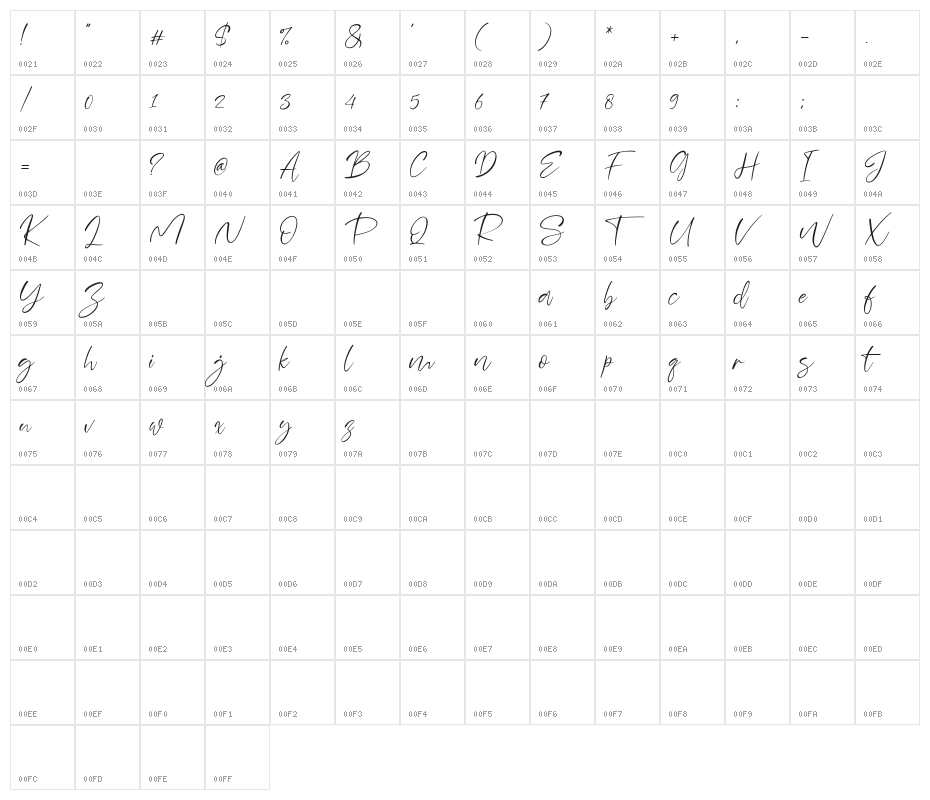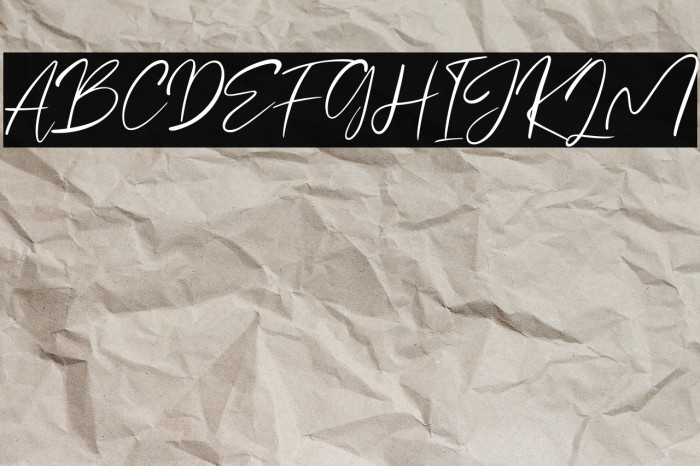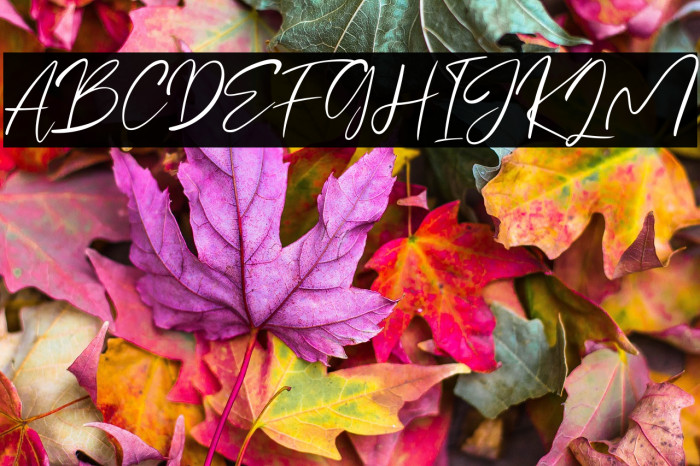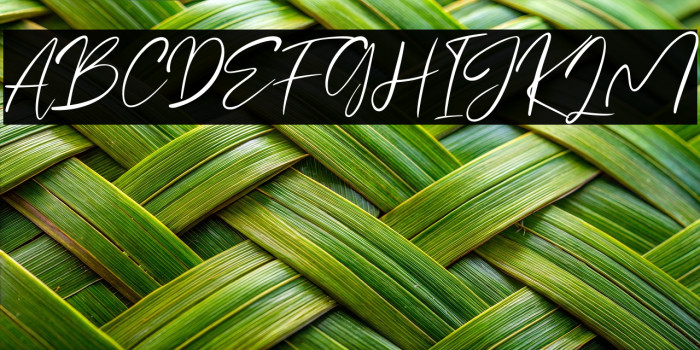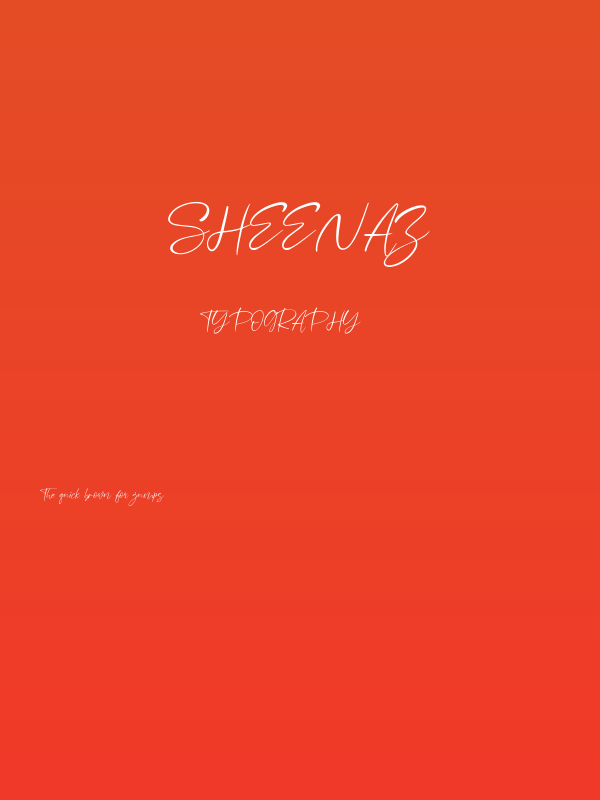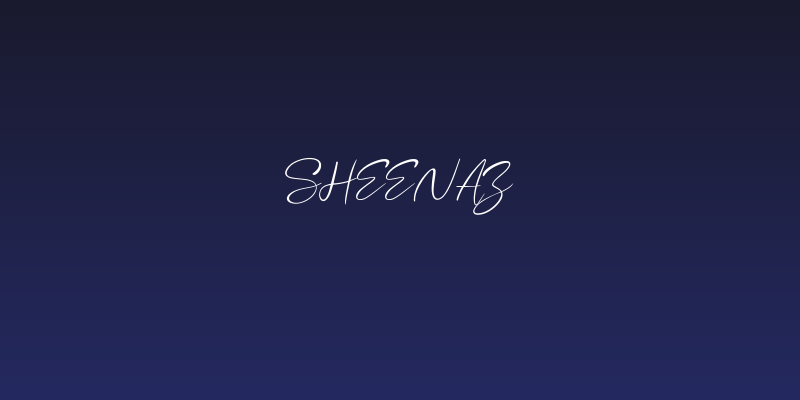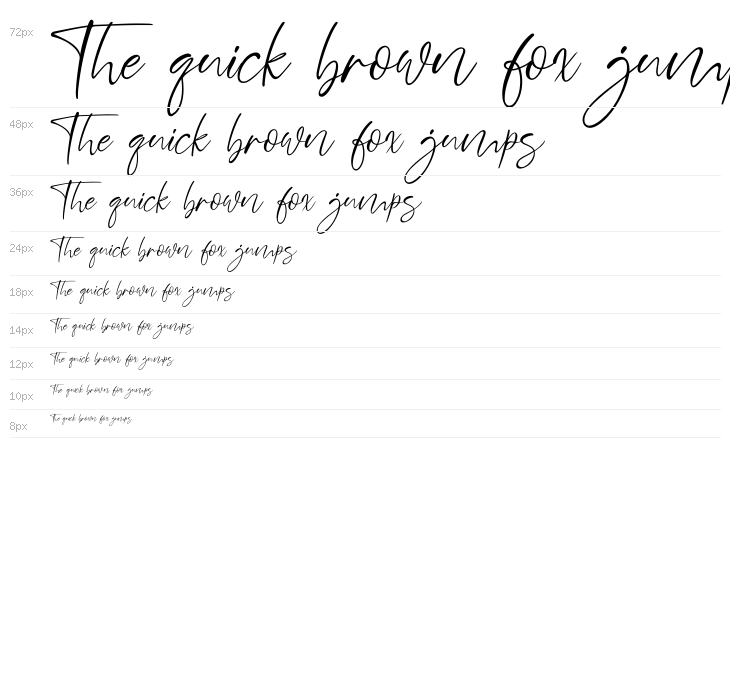
Sheenaz Font
Sheenaz Description
This font exudes a lively and elegant script style, characterized by its flowing, cursive letterforms. The uppercase letters are bold and sweeping, with a sense of movement and flair, while the lowercase letters maintain a consistent fluidity, adding a touch of sophistication. The numerals and special characters are crafted with the same attention to detail, ensuring a cohesive look throughout. The font's overall appearance is both modern and timeless, making it suitable for a variety of design applications.
| Proposed Projects | Ideal for wedding invitations, greeting cards, branding projects, and elegant packaging designs. |